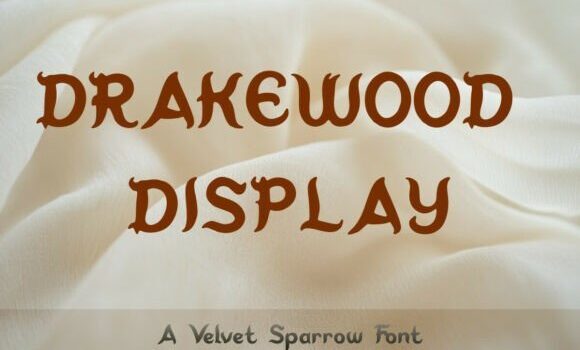
drakewood
Drakewood Display Font - Featured Image
Drakewood Display Font – Free Download Introduction to Drakewood Display Font Drakewood Display is a handcrafted decorative display font with a bold, organic character. 📸 Preview Gallery 3 images 📌 Product Name Drakewood Display Font 👤 Author Velvet.Sparrow 📂 Category